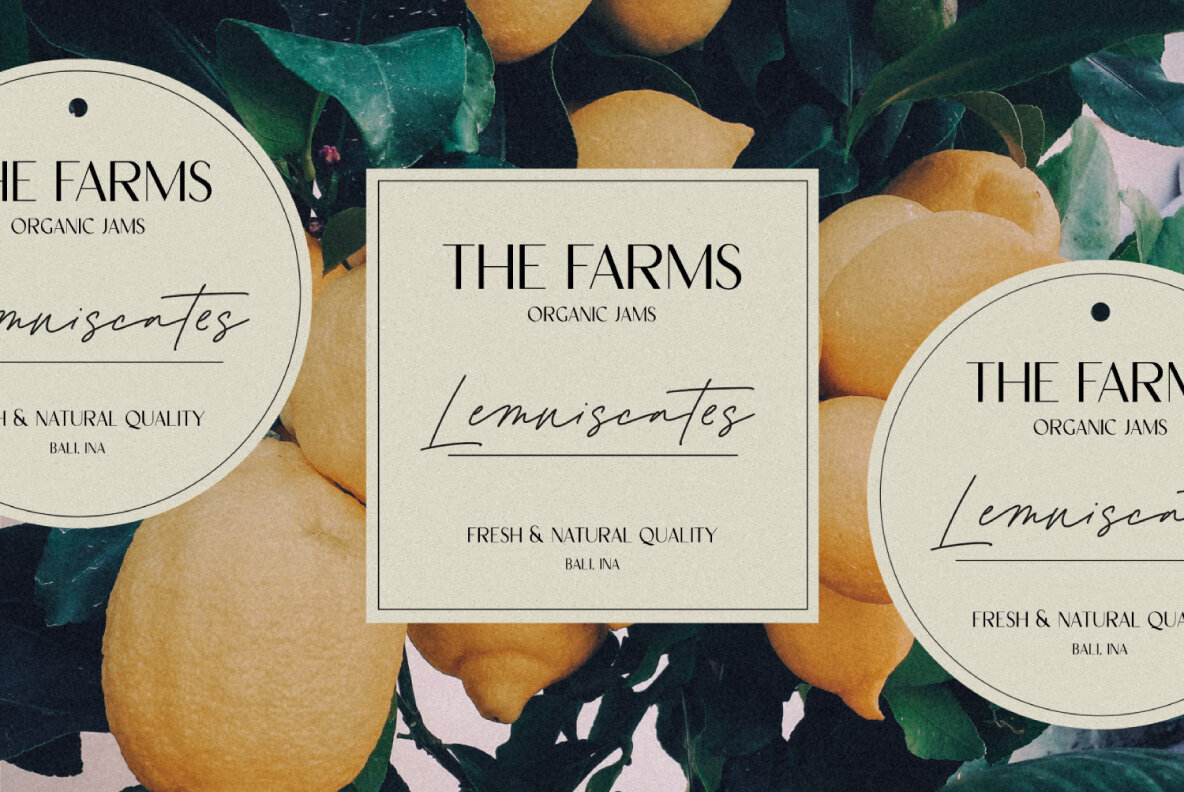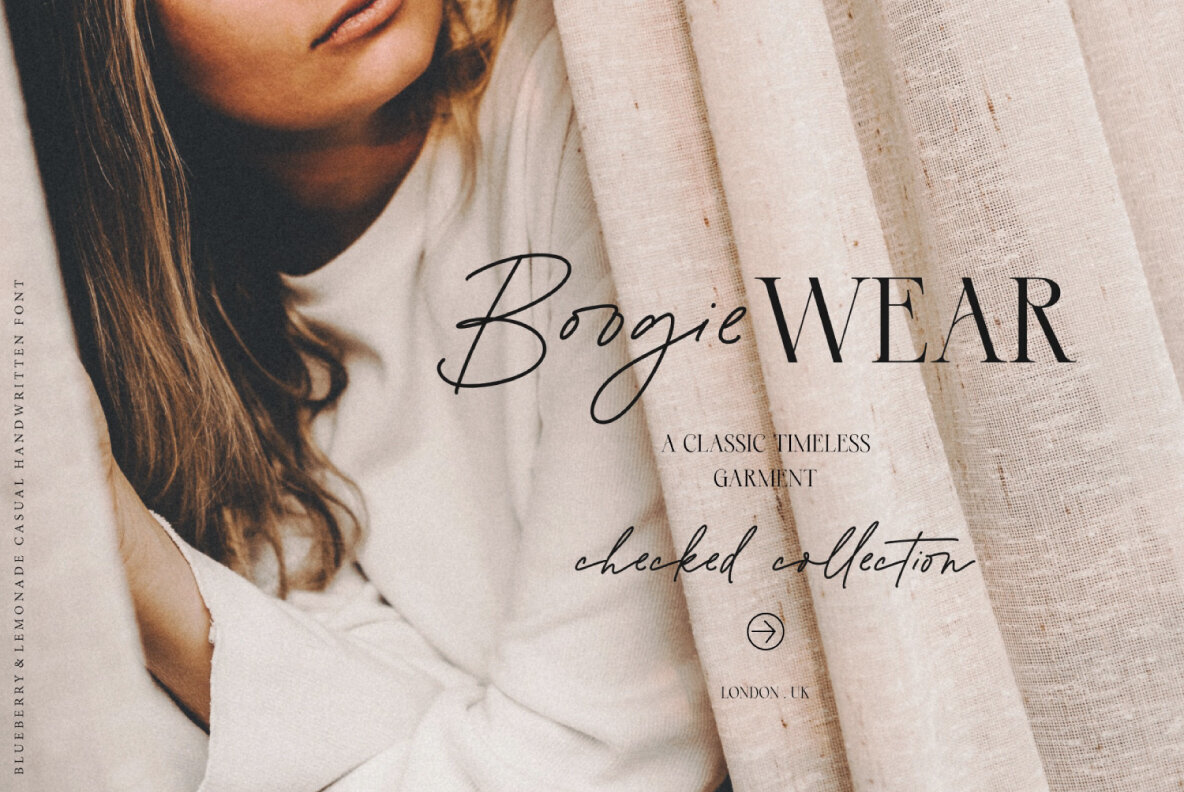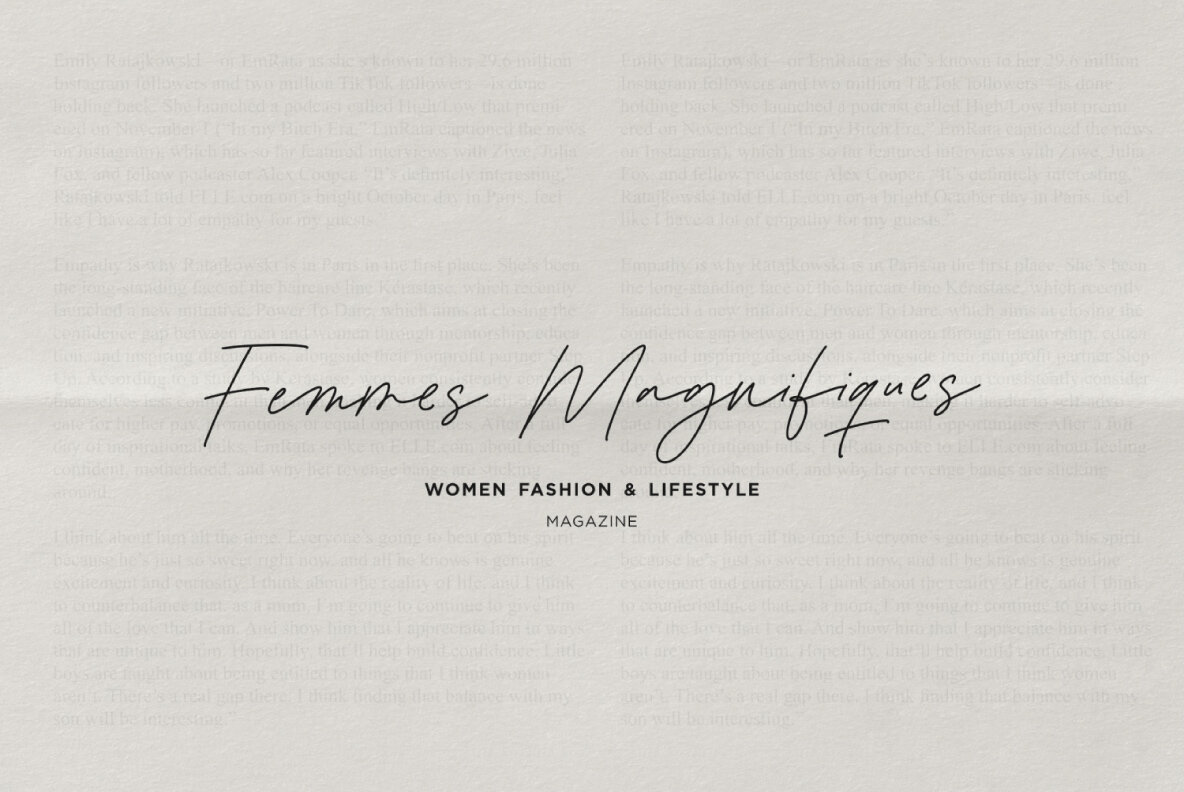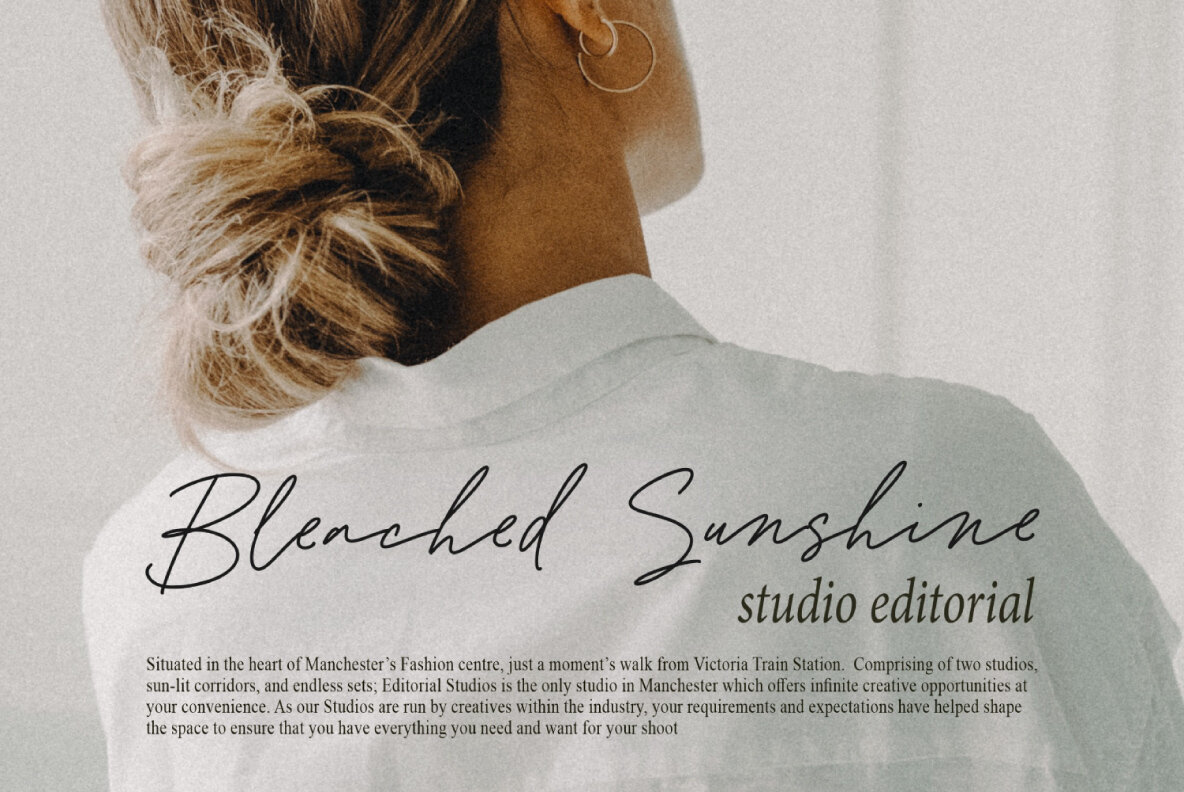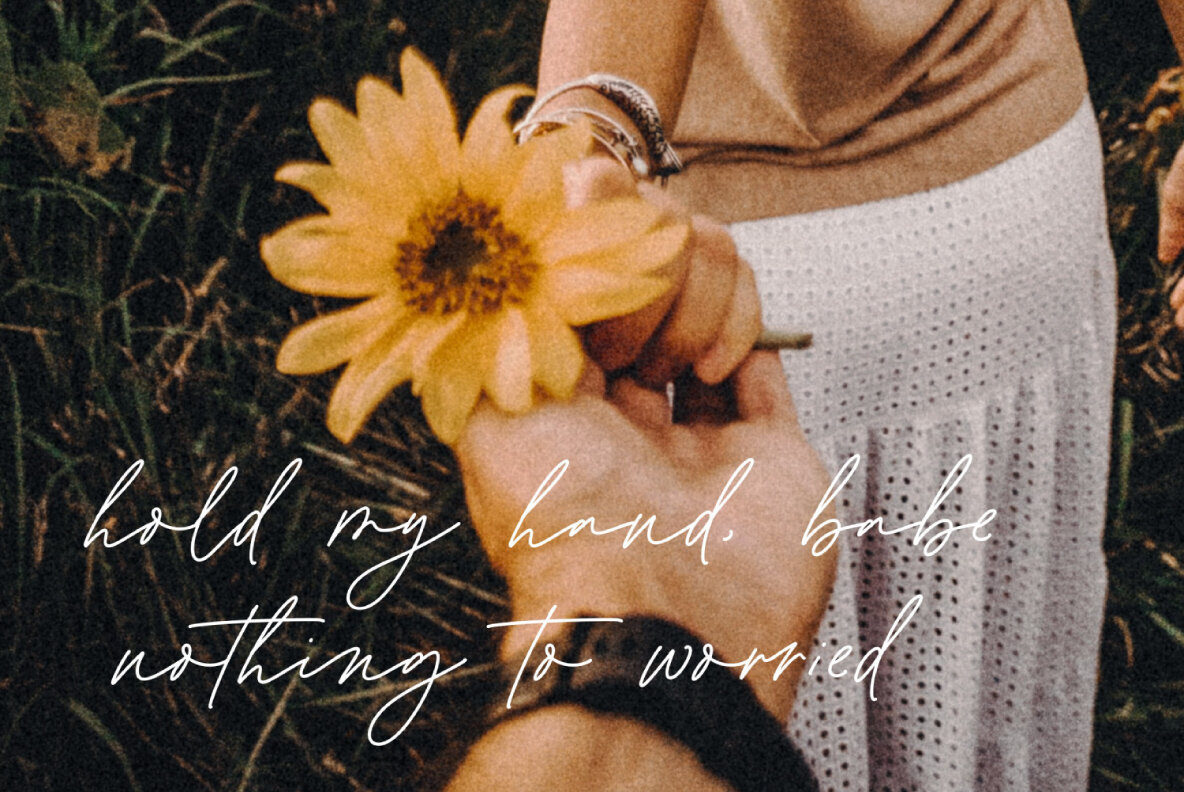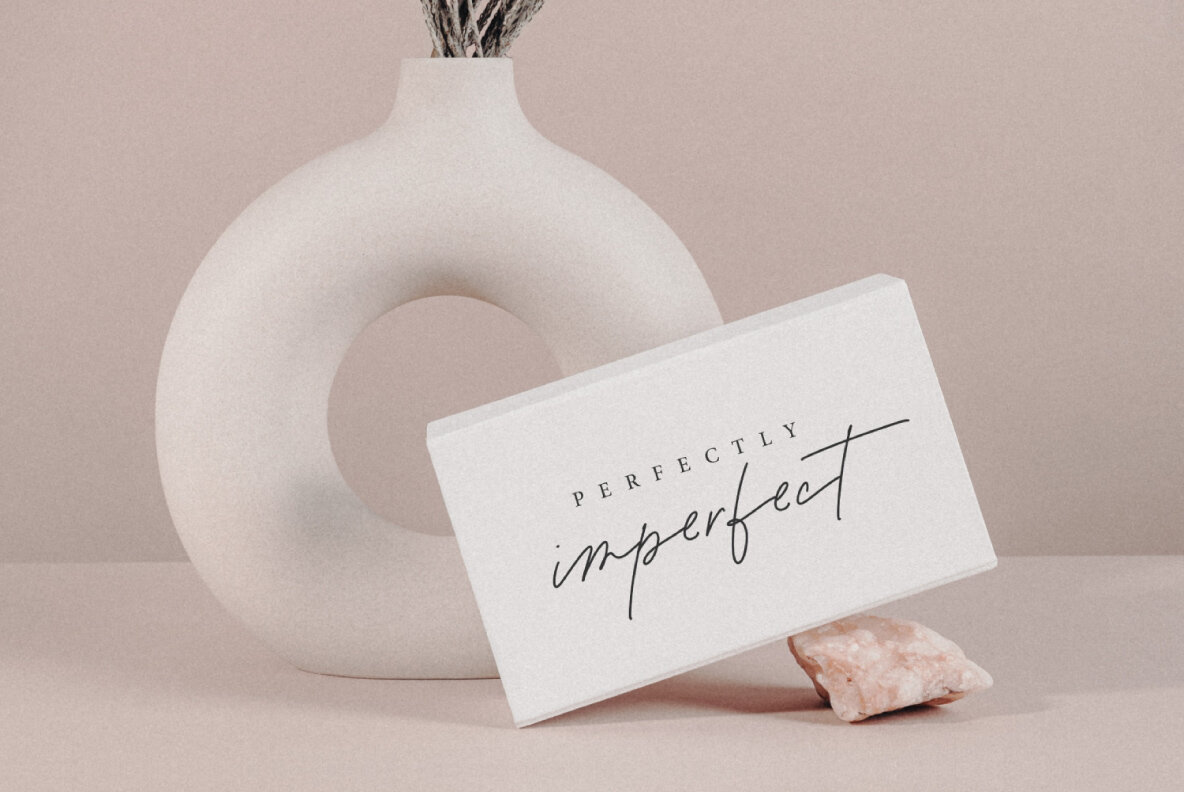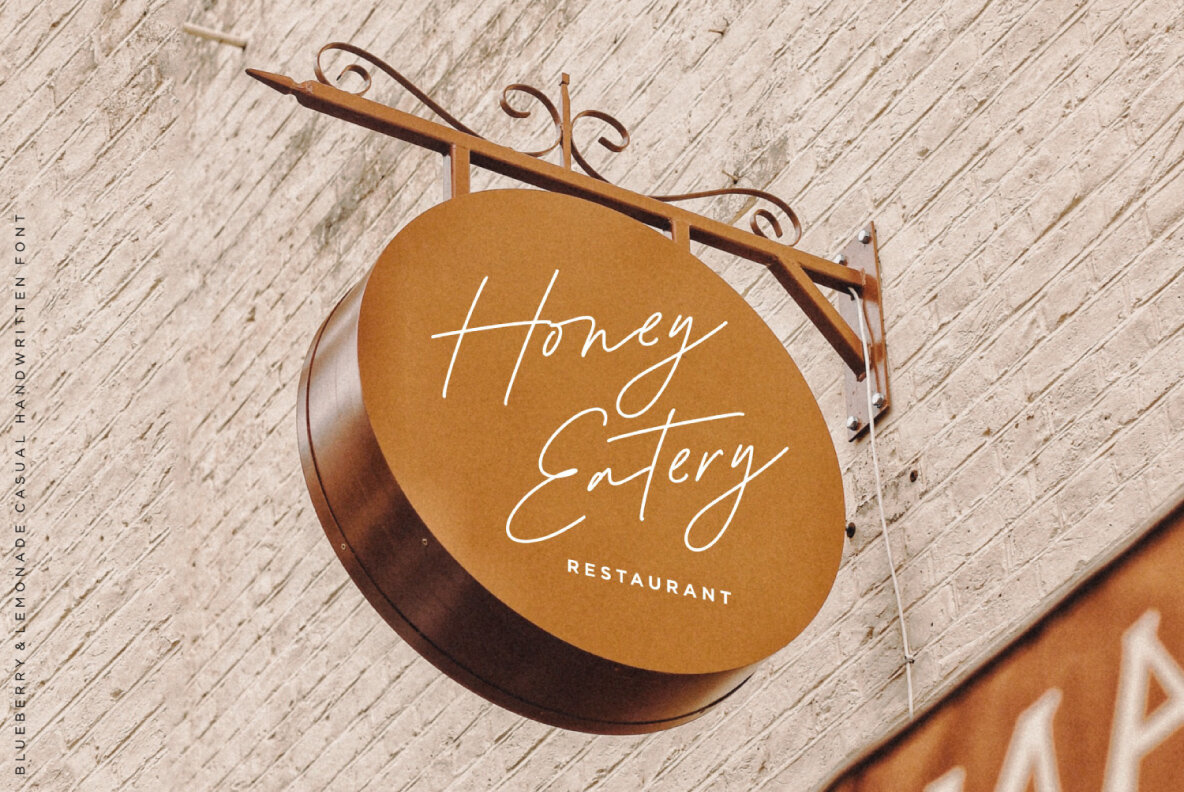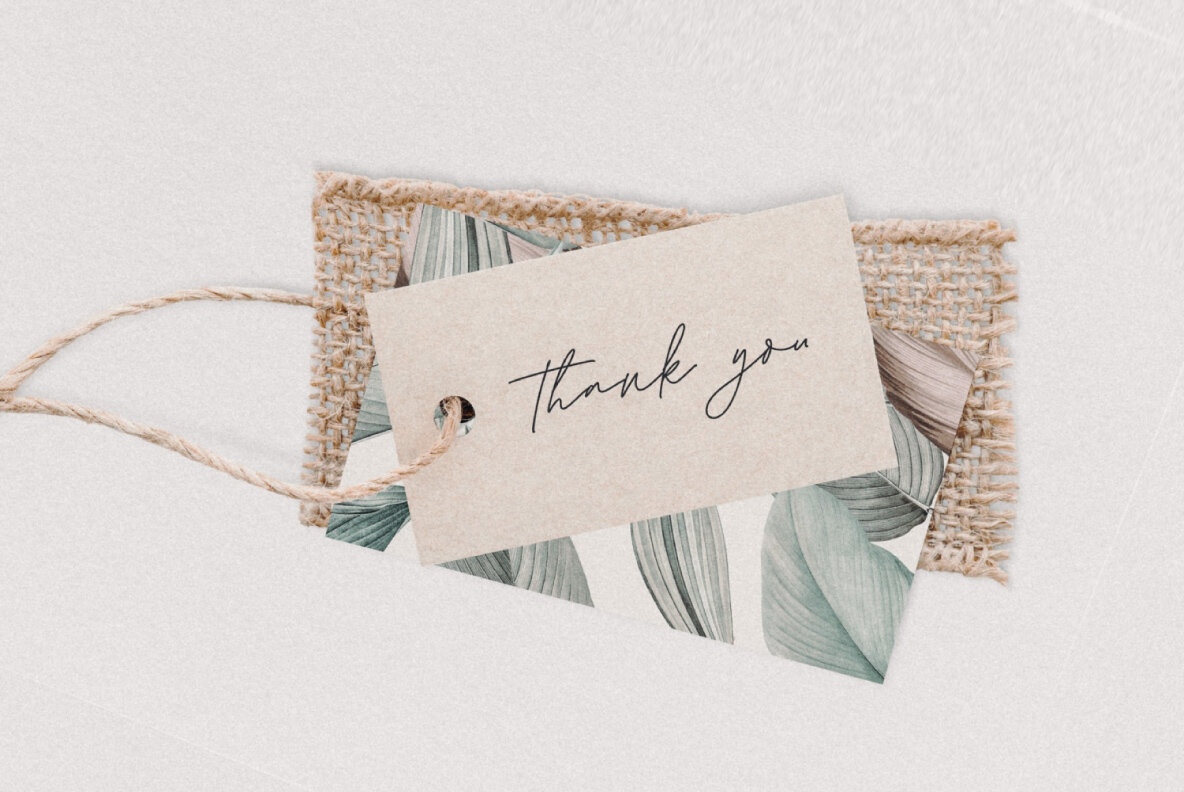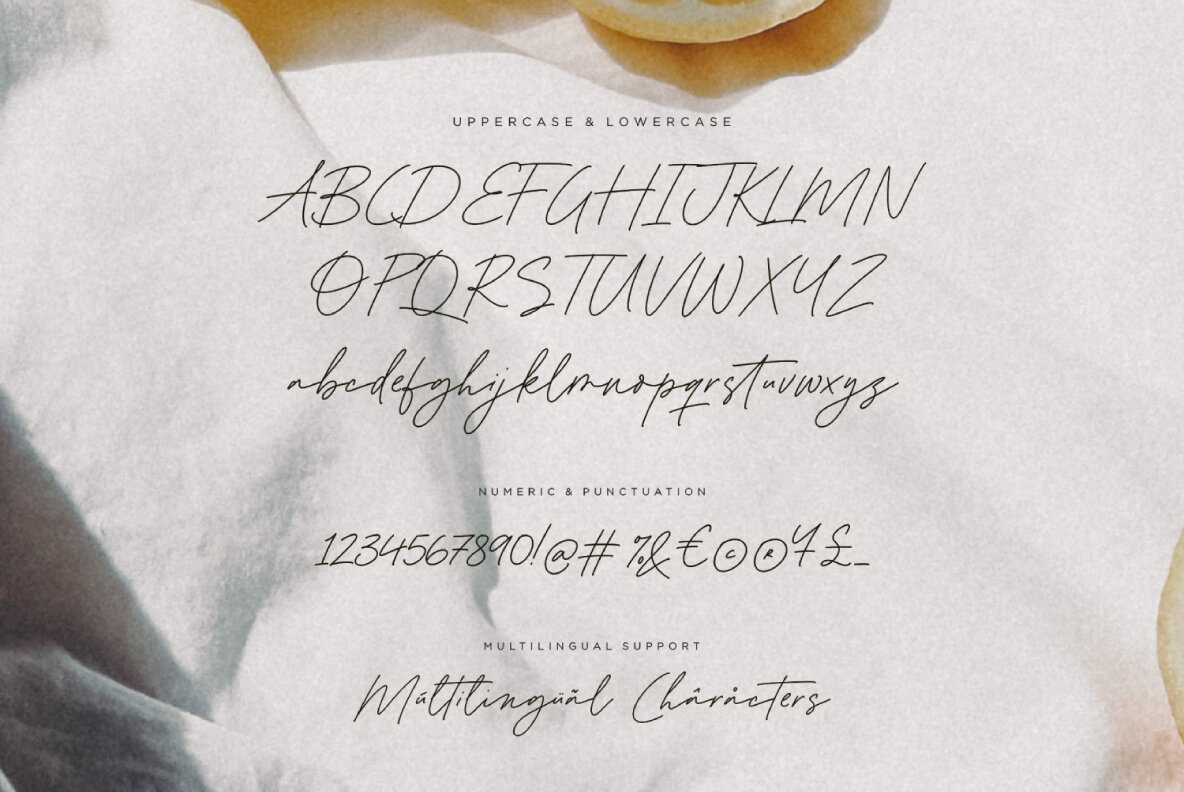
Blueberry and Lemonade Font
Blueberry and Lemonade Regular
Designers longing for a modern and chic touch to their projects will find Blueberry and Lemonade a delightful choice. This casual handwritten font effortlessly infuses originality across various design scenarios. Blueberry and Lemonade serves as a versatile tool for diverse design applications, including merchandise, T-shirts, signature logos, weddings, book covers, and social media posts. From websites to event graphics, its playful elegance elevates any visual experience.Blueberry and Lemonade: A Handwritten Font with Chic Appeal